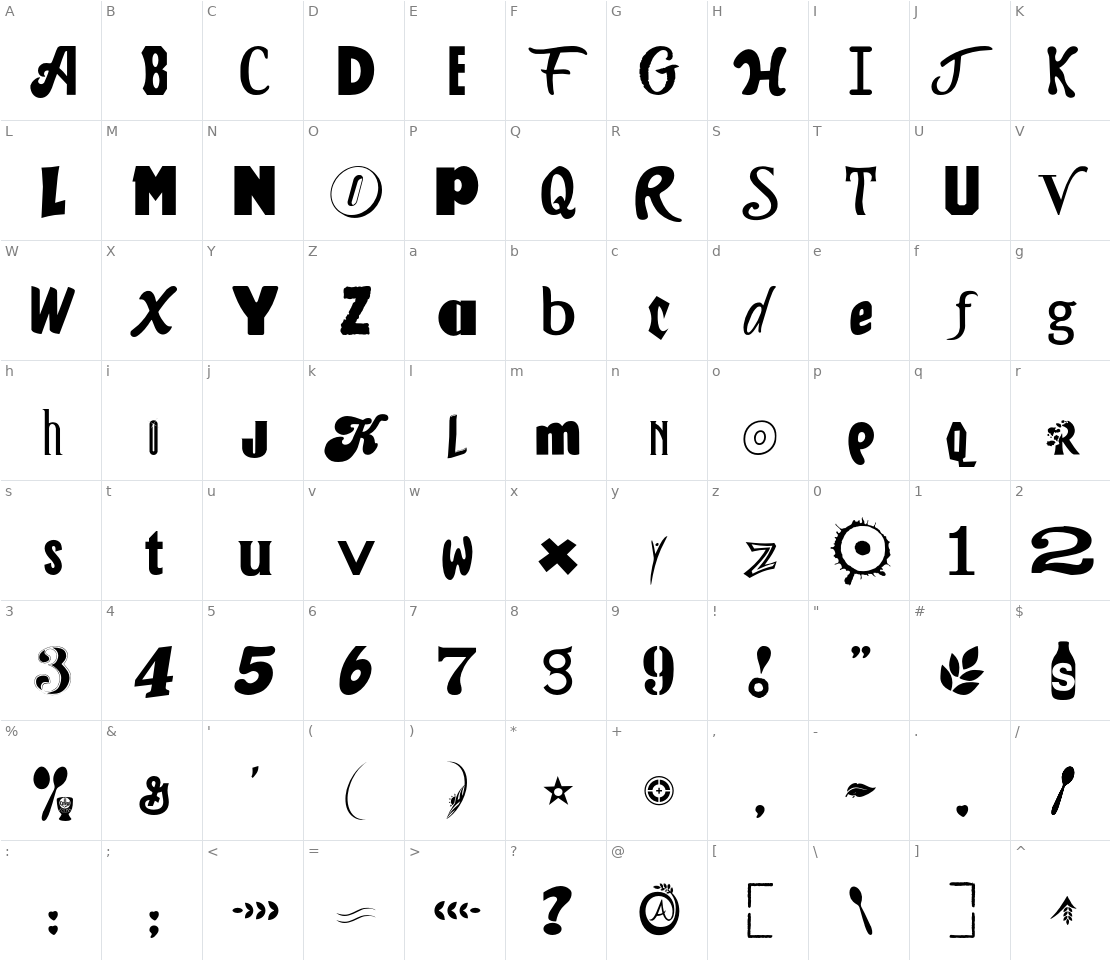
Cereal Killerz
Cereal Killerz is a bold, deliberately chaotic display face from SpideRaYsfoNtS where every letter seems to be doing its own thing. The mixed-case letterforms bounce around in size and alignment, giving it a cut-and-paste ransom note energy that somehow stays playful rather than threatening. Best kept to headlines, posters, and packaging where you want something loud, irreverent, and a little unhinged.